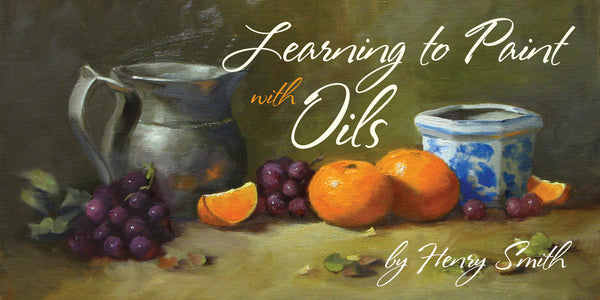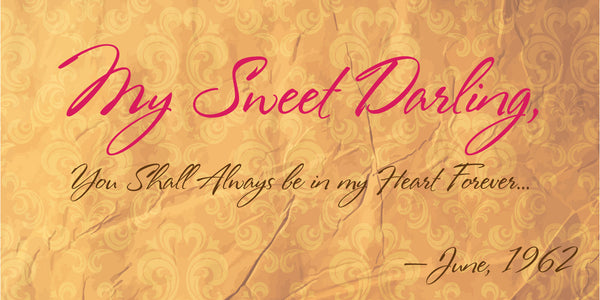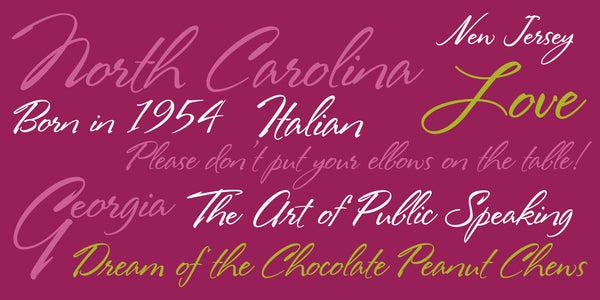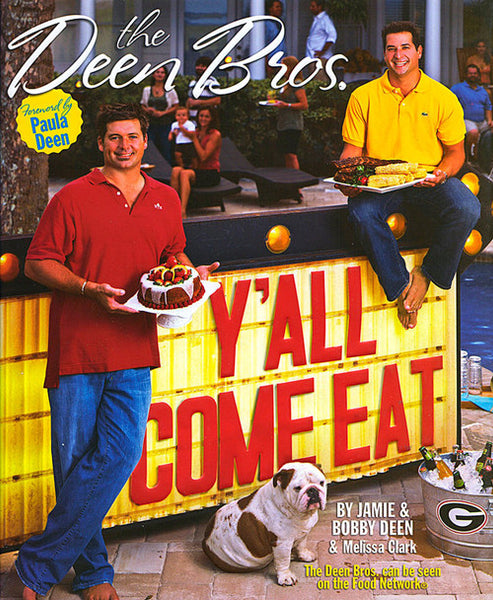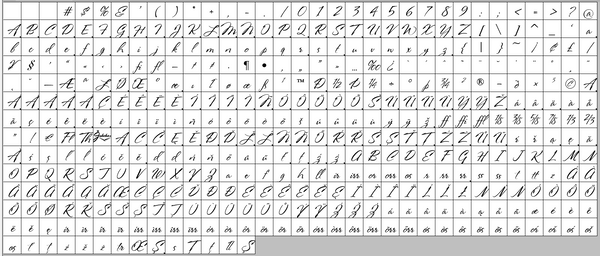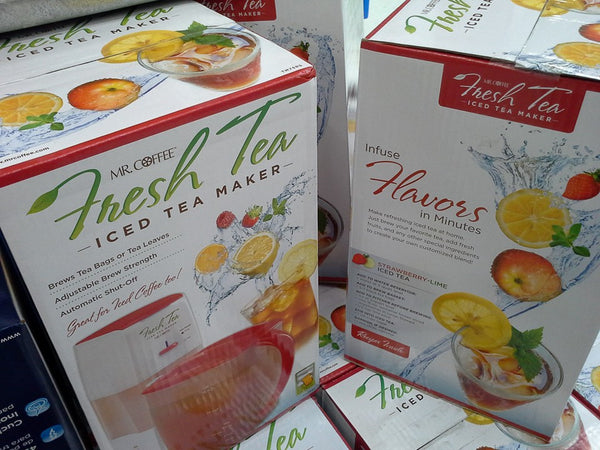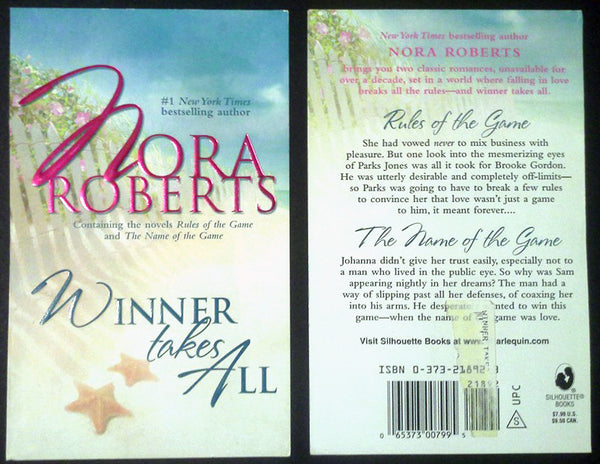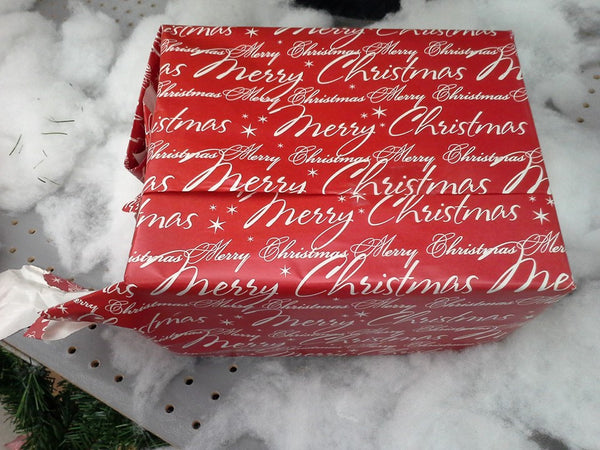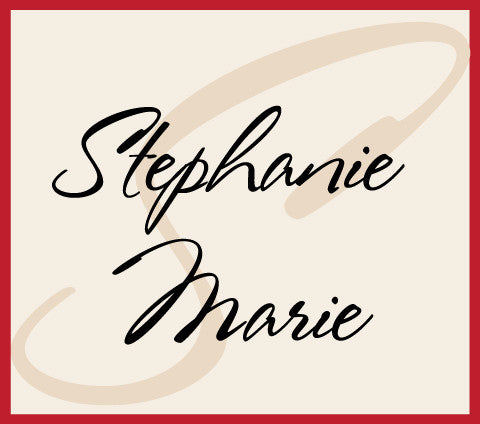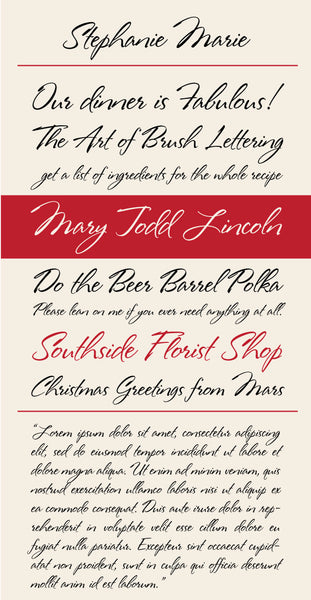
Stephanie Marie
Stephanie Marie is a lighthearted, feminine script font in a hand writing style. This has been one of my most popular Jukebox fonts ever! The long looping descenders and calligraphic design of the font make it perfect for everything from wedding invitations, titling, signage and invitations to scrapbooking and much more. The font is named after a dear friend of mine and has been used on countless products, book covers, television shows and many other venues.
In 2010, I added a full set of alternate upper case letters and several lower case to Stephanie Marie to give added versatility. They can be accessed under the Stylistic Alternates OT feature.
Notable Uses: Stephanie Marie has been used on too many designs to list them all, but some of the major stand-outs are on the covers of Nora Roberts paperbacks, on the labels on Fiji water bottles, the cover of the Deen Brother's Cookbook and Mr. Coffee products.